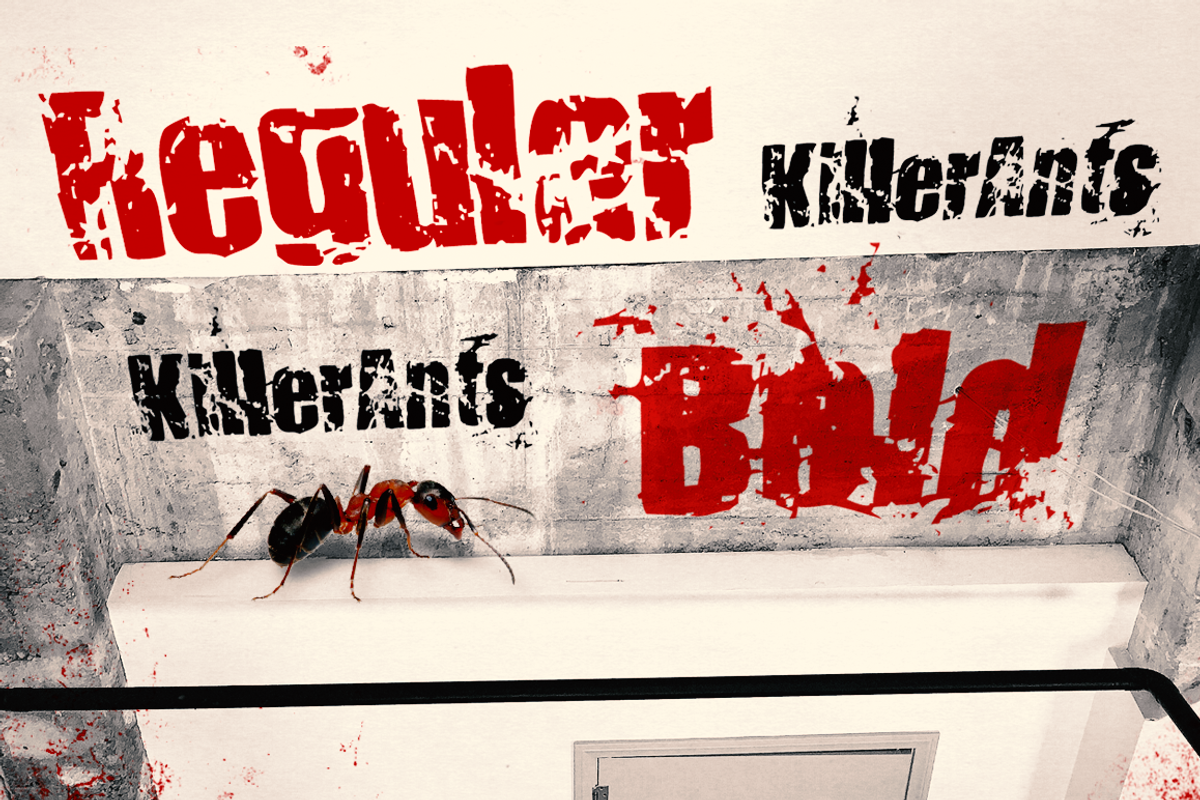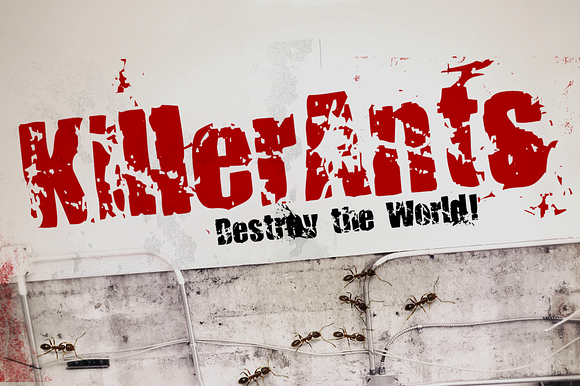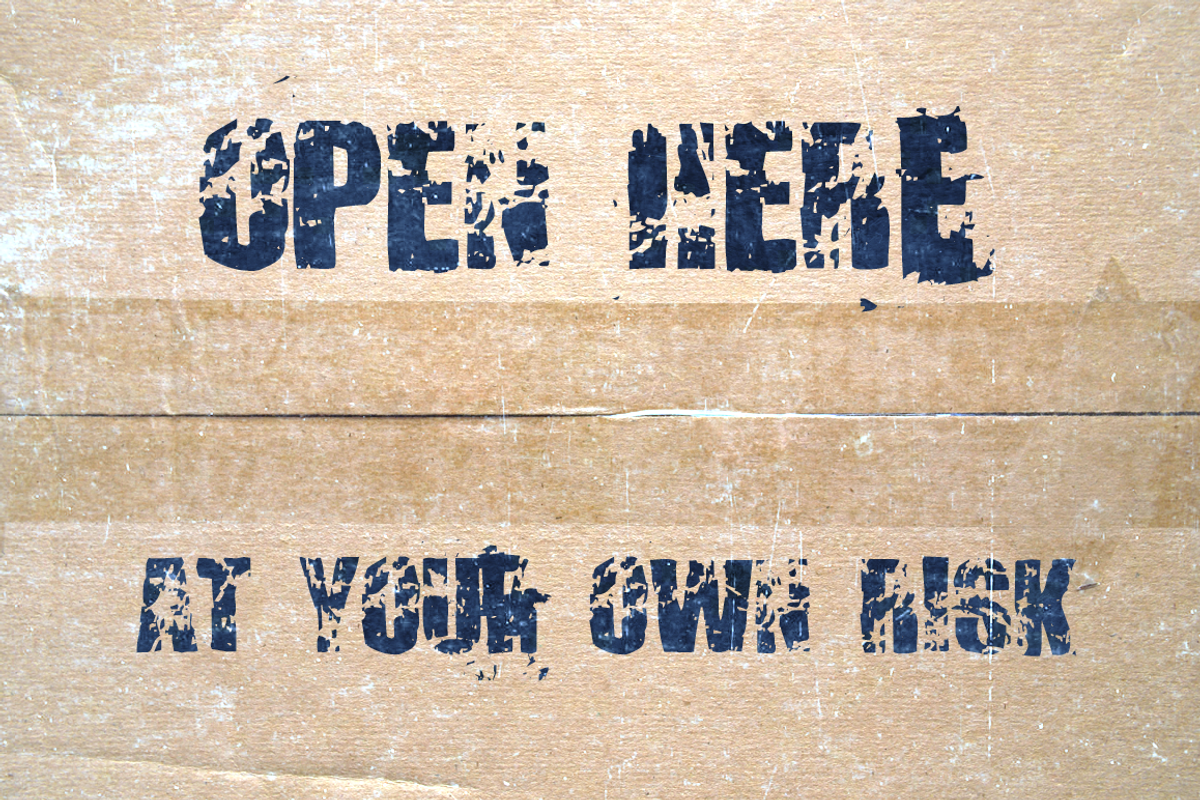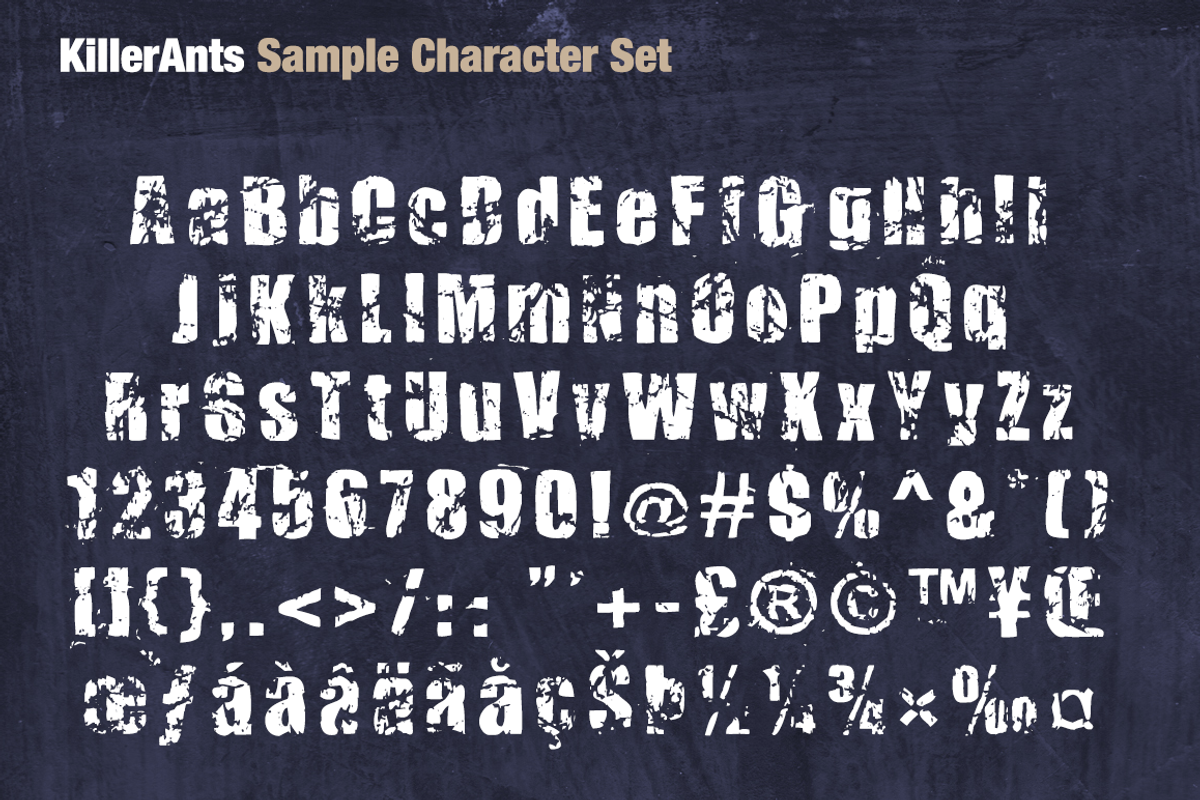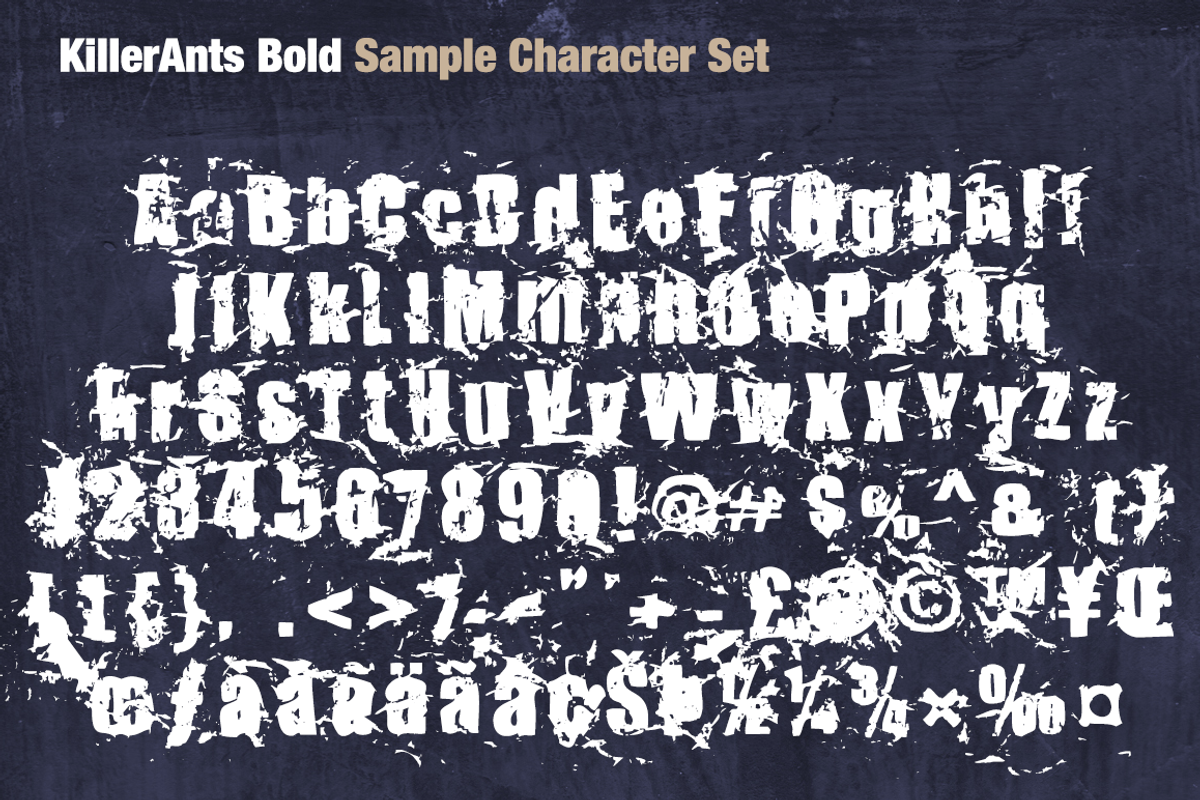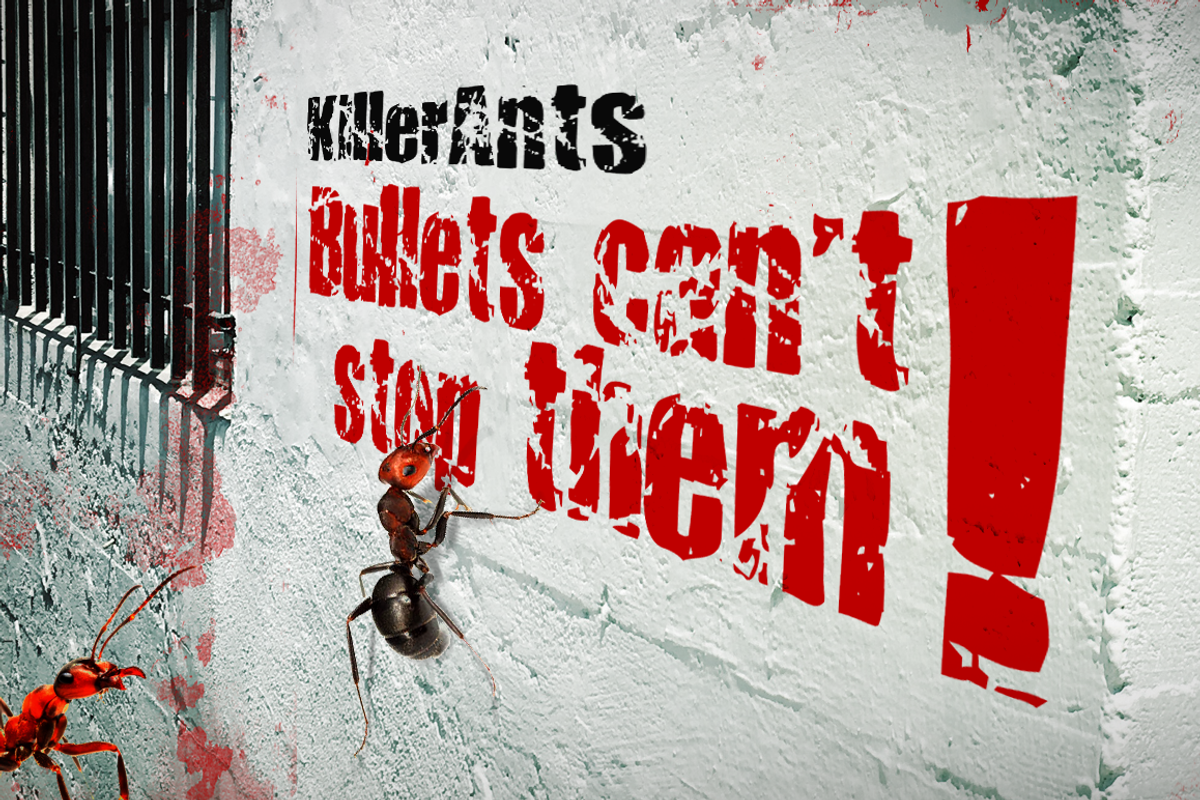
KillerAnts
KIllerAnts and KillerAnts Bold
The ultimate grunge font. There are two versions of Killer Ants, regular and bold. Regular is a very cool cracked up looking font that will be great for all kinds of stuff. Bold is one of the most distressed fonts I've ever seen - there’s crap everywhere - adjust your leading (line spacing) so the grunge overlaps for even more mess.
This font was inspired by an ant invasion out in back of the studio. I grabbed a type sample, crinkled it up to get it good and worn out - then I used it to "take care of" the ant invasion. Yes, those blobs are actually smashed ants. Killer!